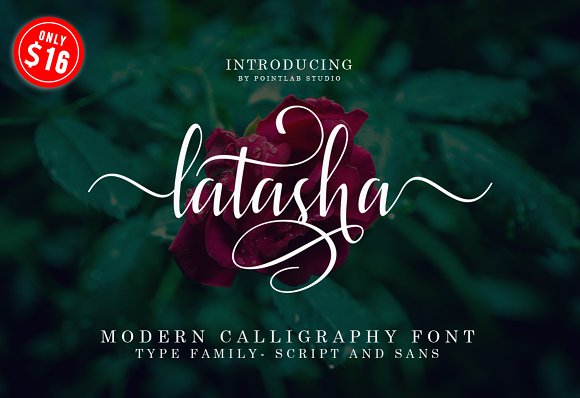
Prepare to be captivated by Latasha Font, a calligraphic masterpiece that will ignite your creative spirit. Inspired by the vibrant energy of modern calligraphy, Latasha effortlessly blends elegance and authenticity to give life to your digital visions.
Embark on a typographic journey where every letter dances with grace and fluidity. With its 6 distinct weights and versions, Latasha offers a symphony of styles to suit your every whim. From delicate whispers to bold proclamations, this font family possesses the versatility to elevate your designs to new heights.
But what truly sets Latasha apart is its unparalleled character. Boasting over 2245 unique glyphs, it's a treasure trove of typographic possibilities. Unleash your imagination and craft designs that exude personality and flair.
Whether you're a seasoned designer or just starting to explore the world of typography, Latasha will captivate your senses and inspire your creativity. Let its enchanting curves and captivating strokes guide you towards designs that resonate with emotion and leave a lasting impression.
Embrace the power of Latasha Font today, and unlock a world of typographic possibilities where beauty and originality intertwine.